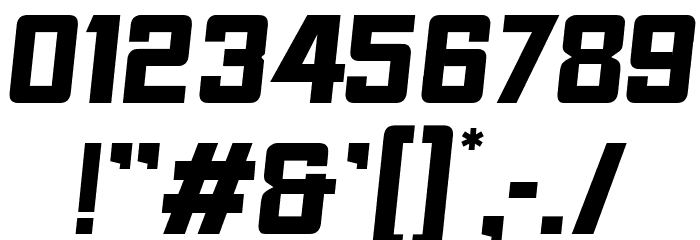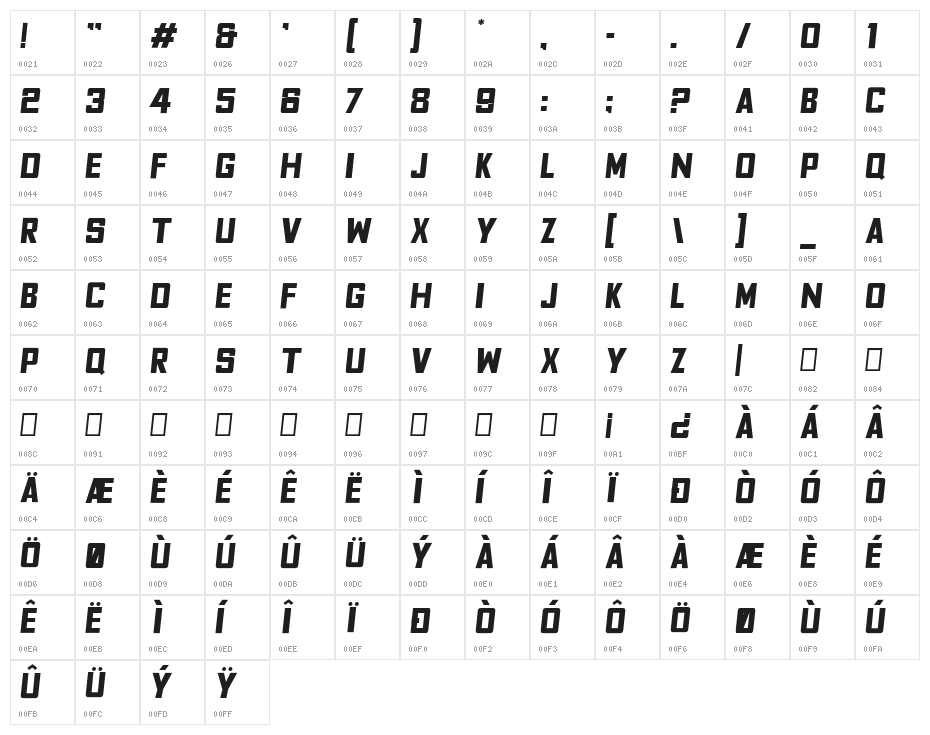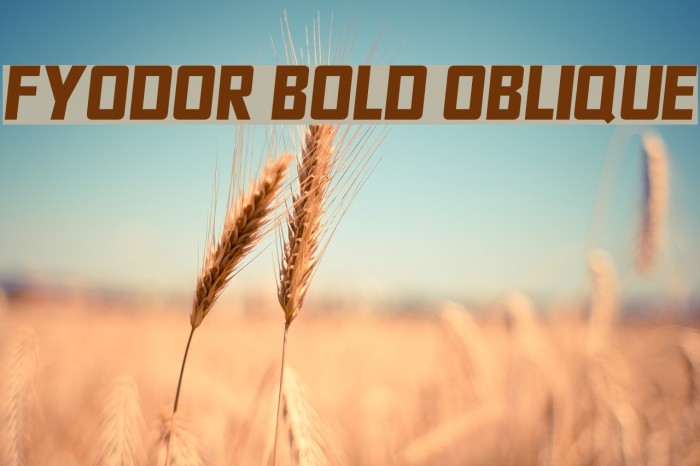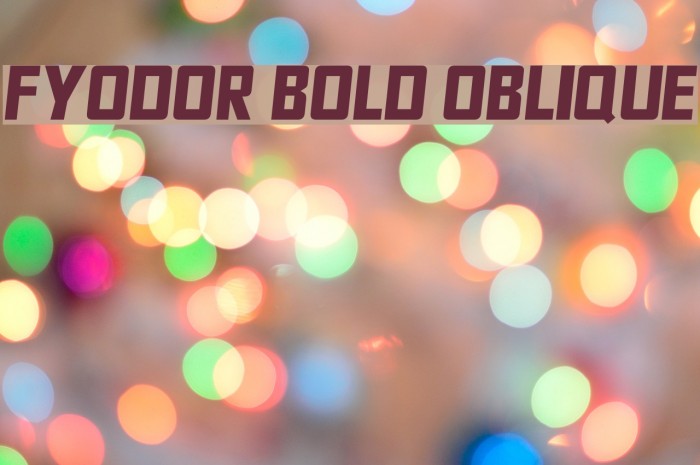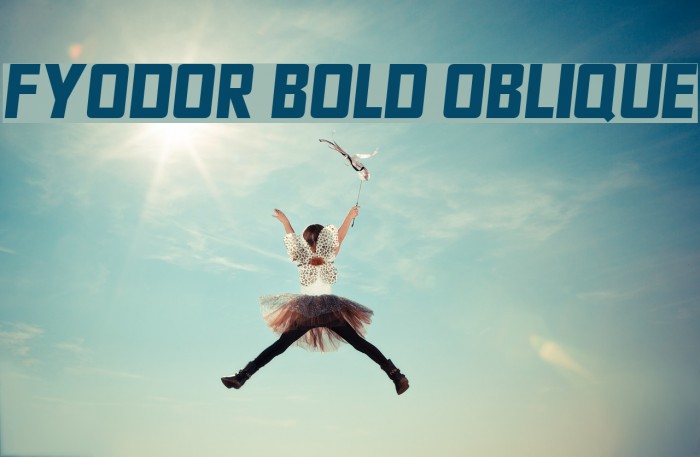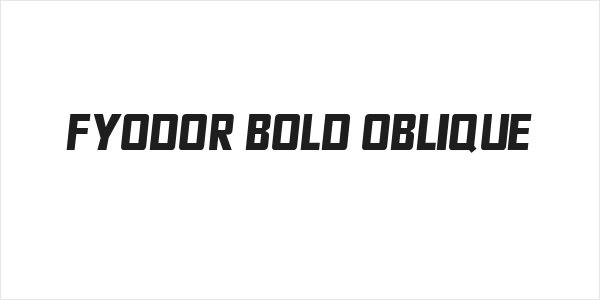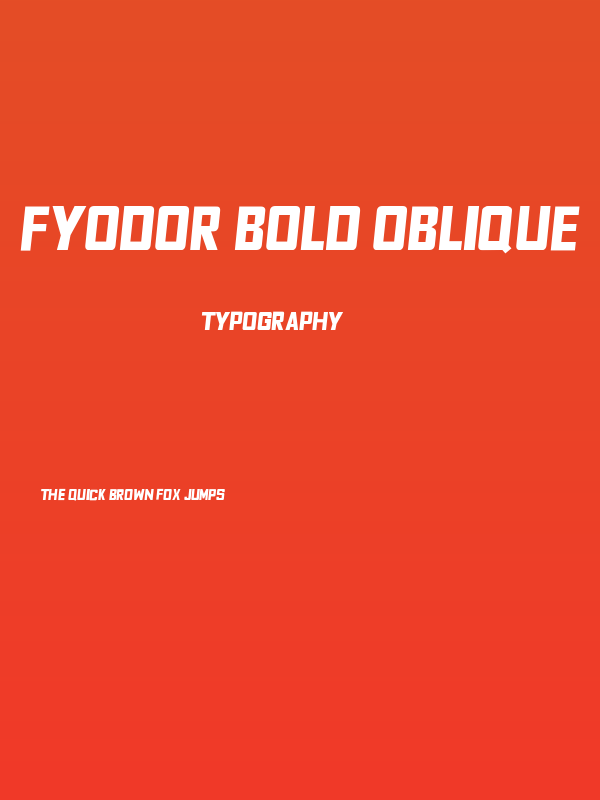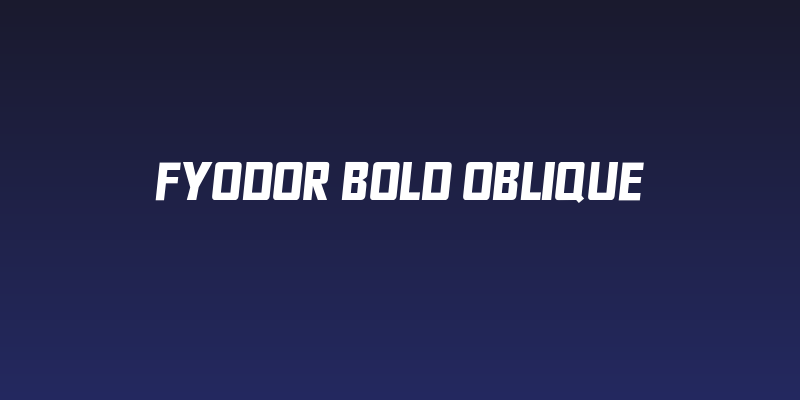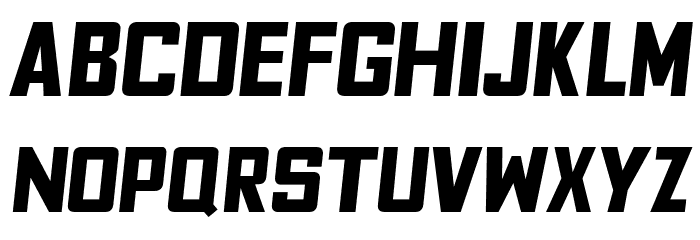
Fyodor Bold Oblique Font
Fyodor Bold Oblique Description
This font features a bold and oblique style, characterized by strong, angular lines and a dynamic slant that conveys a sense of motion and urgency. The uppercase letters are robust and impactful, making them ideal for attention-grabbing headlines. The numerals are equally bold, ensuring clarity and emphasis. Special characters are designed with the same boldness, maintaining consistency throughout the typeface. The overall design is modern and assertive, suitable for projects that require a strong visual presence.
| Proposed Projects | Ideal for sports branding, dynamic posters, impactful headlines, and modern advertising campaigns. |